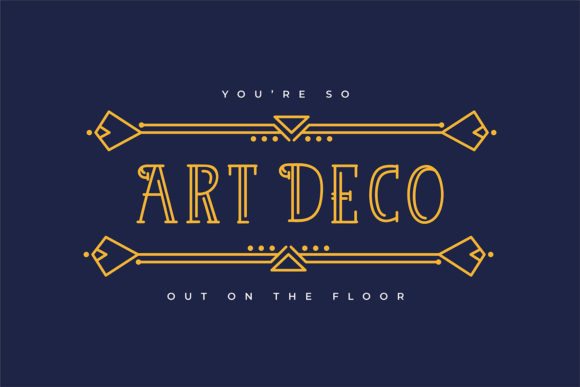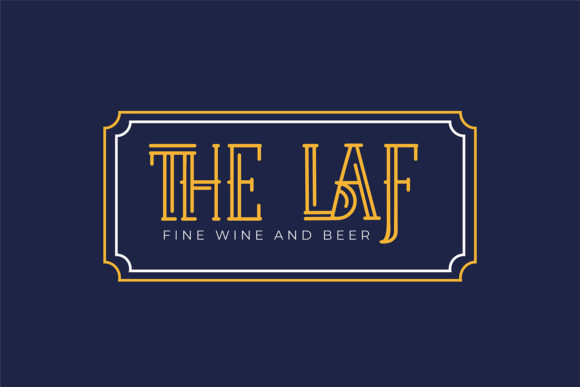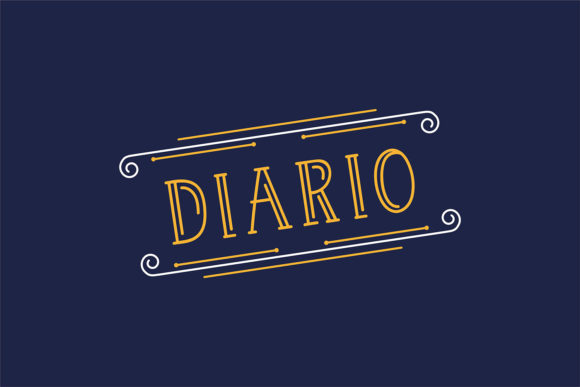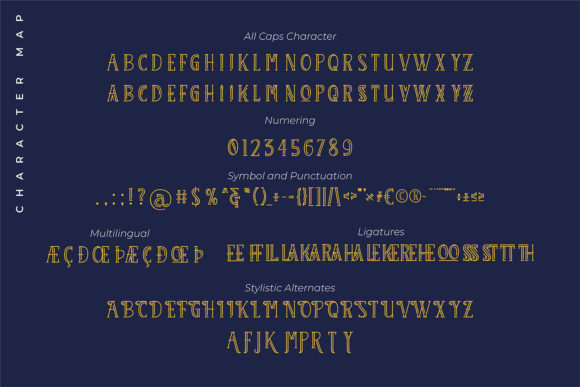
Introduction to Palmeera Font Font
Fonts play a crucial role in design, and the Palmeera Font font is a typeface that brings both character and versatility to any project. Whether you’re working on a branding project, a website, or a print design, the Palmeera Font font offers a unique style that can elevate your work.
| 📌 Font Name | Palmeera Font |
| 👤 Author | Vunira |
Palmeera is a sophisticated serif font.
It features a beautiful look that will take your designs to the next level Use it for greeting cards, branding materials, business cards, quotes, posters, and more.
Key Features of Palmeera Font Font
Why Choose Palmeera Font Font?
The Palmeera Font font is more than just a typeface – it’s a design tool that helps you communicate your message with style and clarity. Its unique character set and versatile design make it suitable for a wide range of applications, from elegant invitations to bold headlines.
With its carefully crafted letterforms and balanced proportions, the Palmeera Font font ensures readability and visual appeal across all mediums.
What makes Palmeera Font font special?
The Palmeera Font font stands out with its unique design, exceptional readability, and versatility across various design applications.